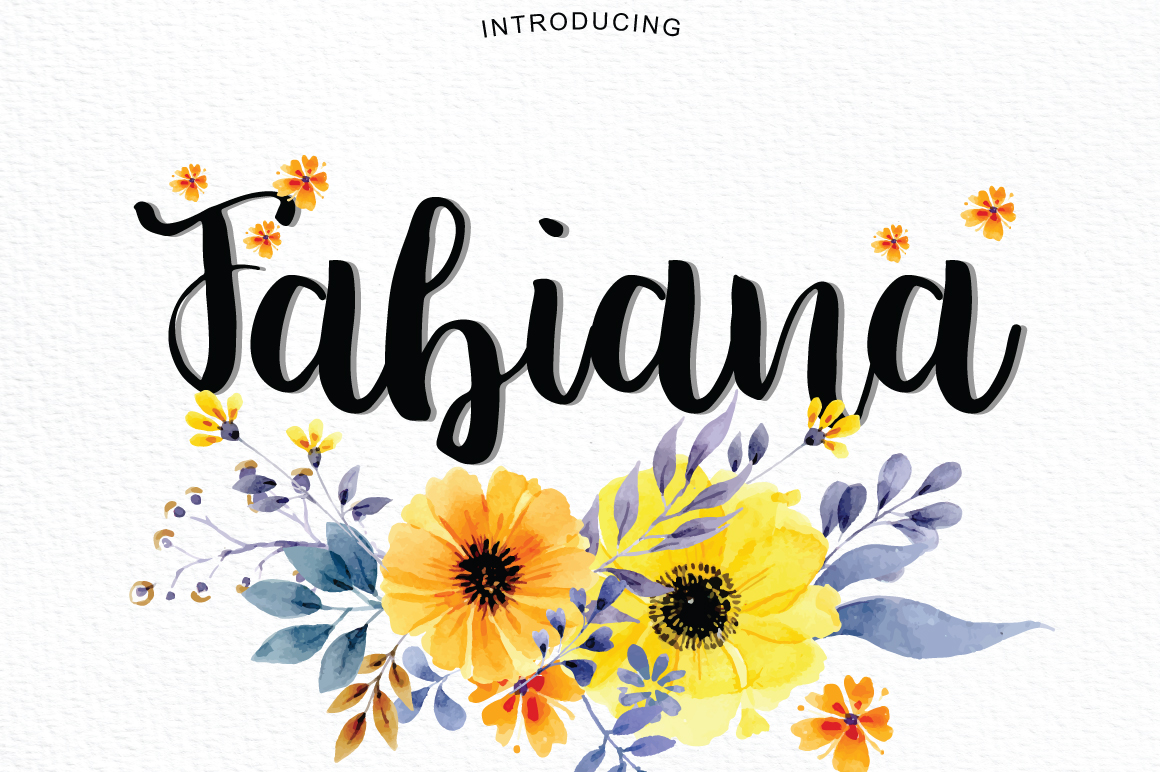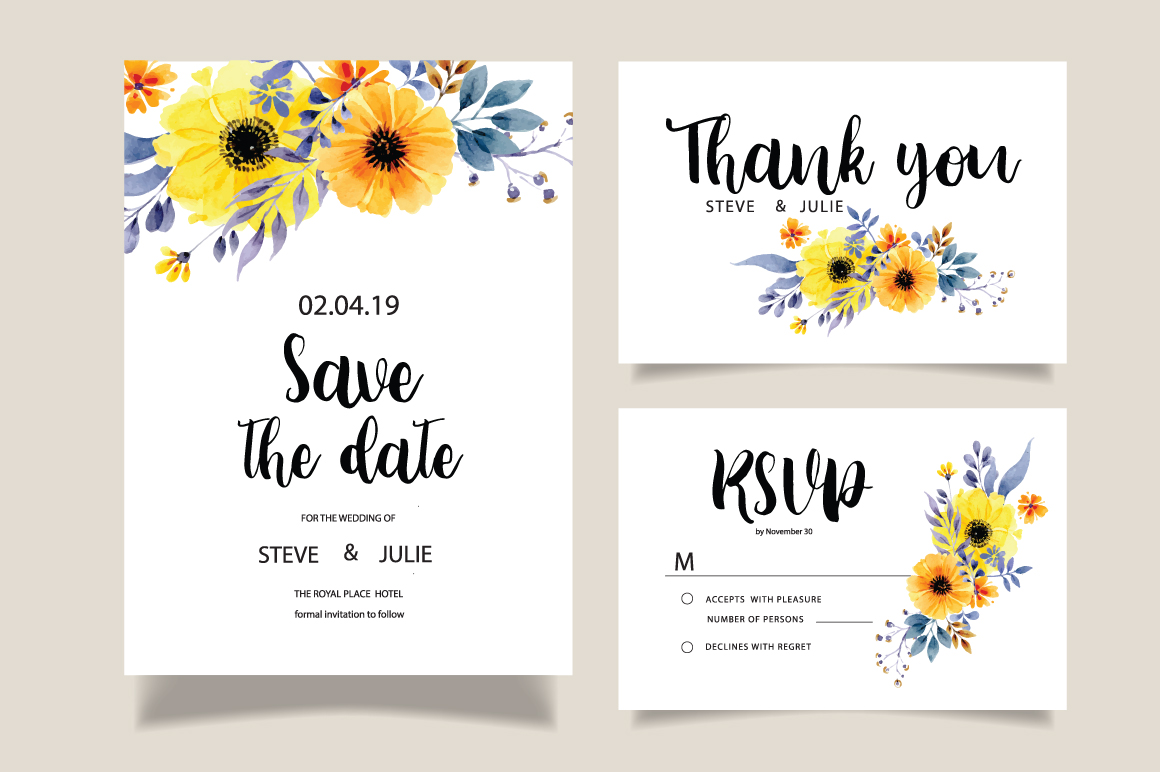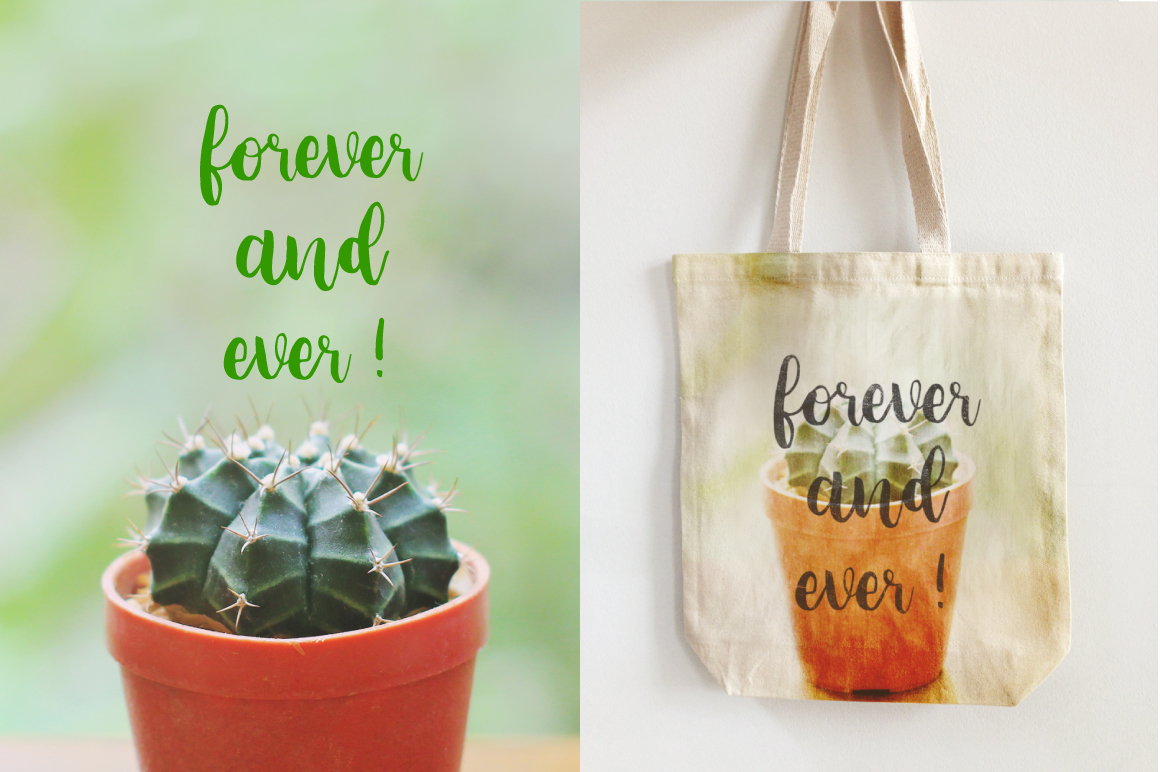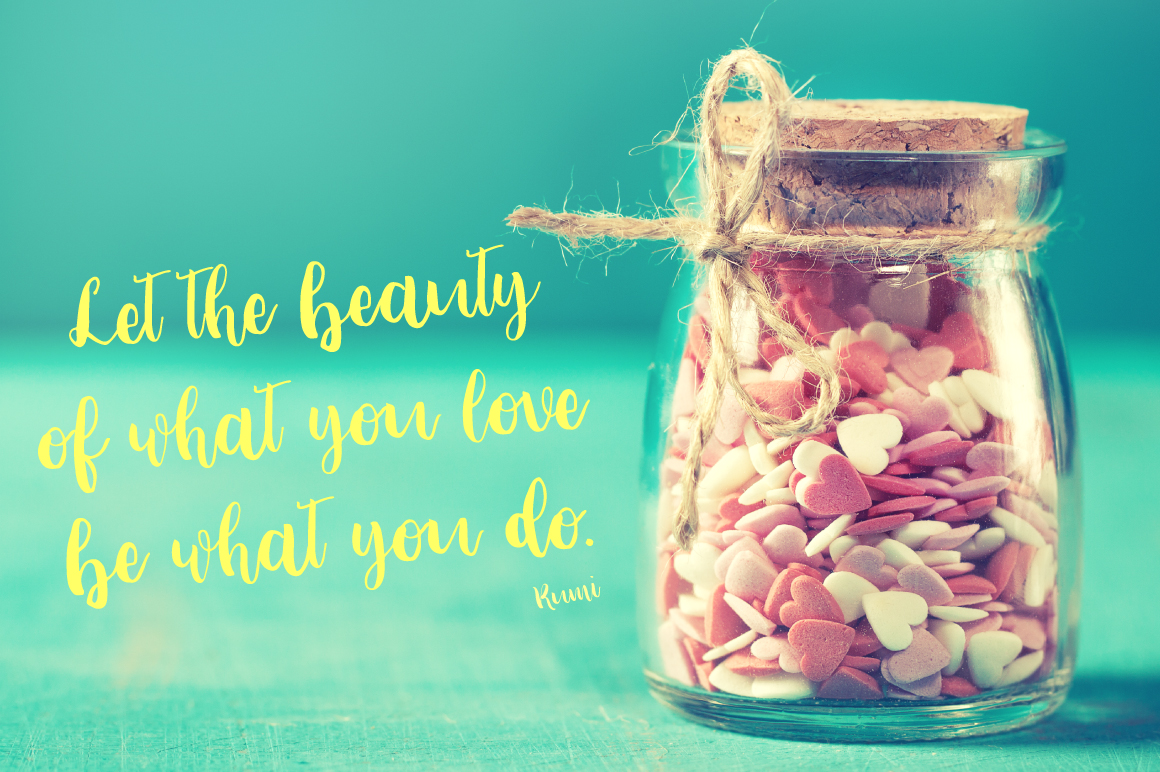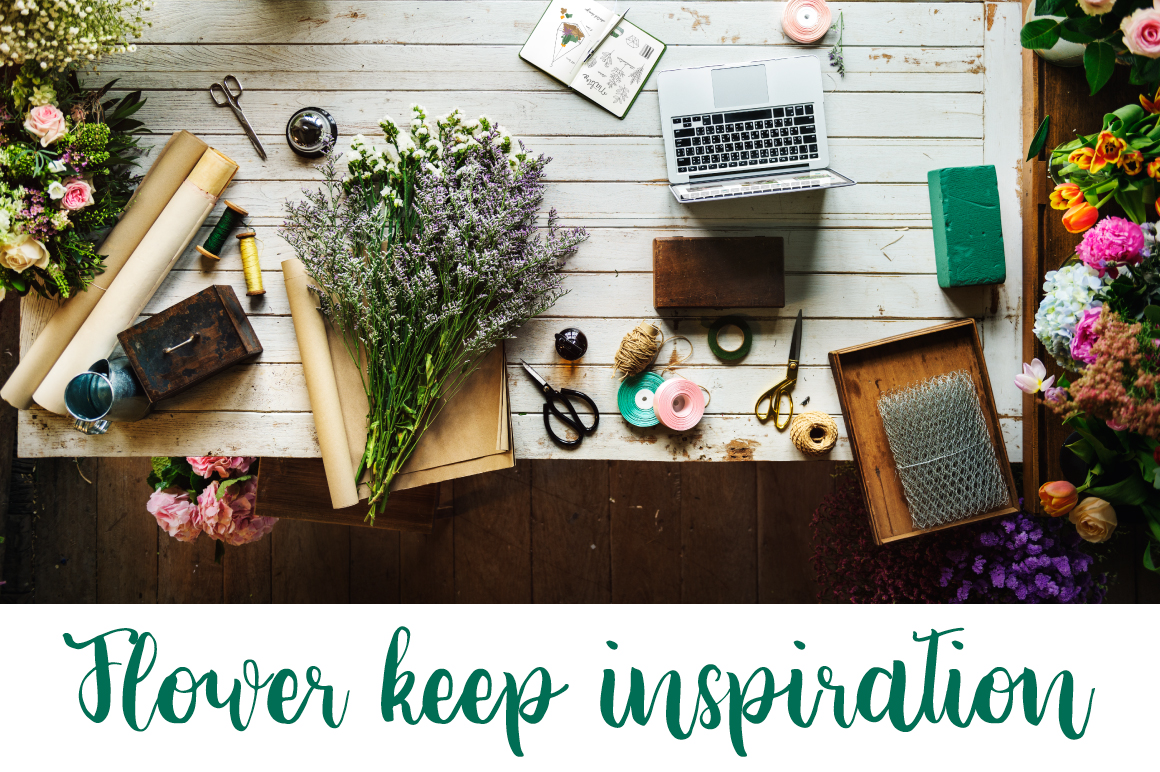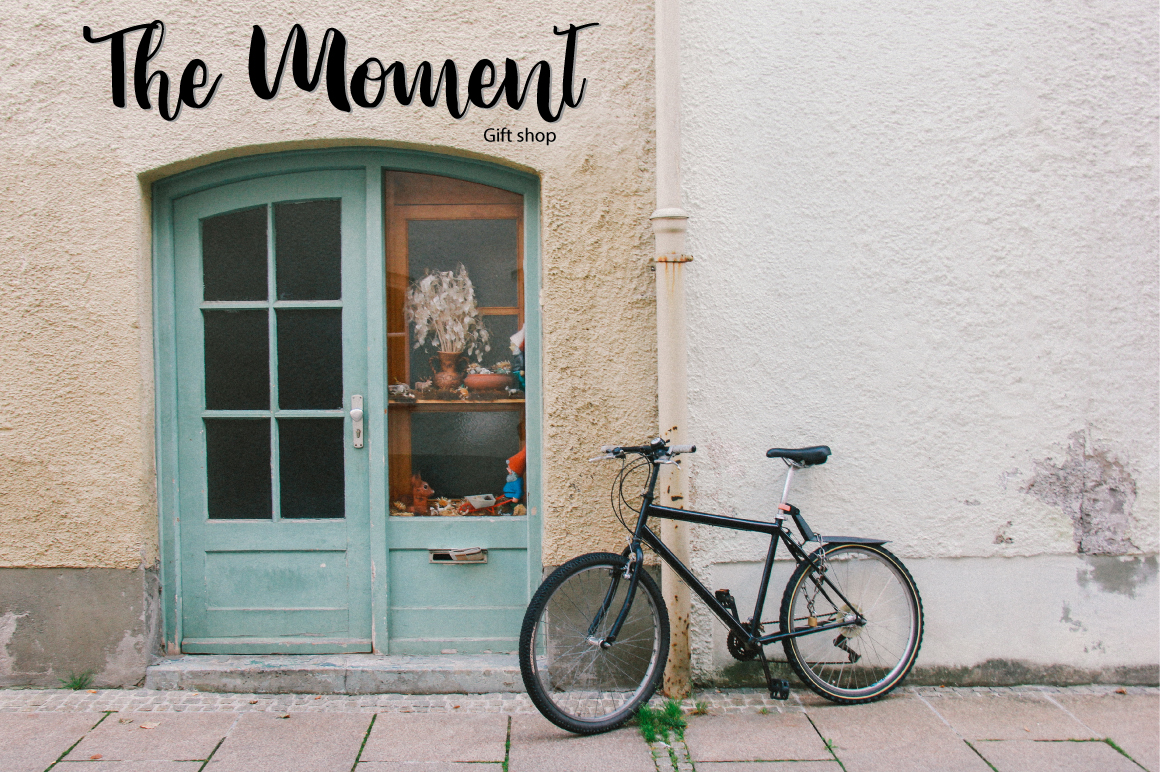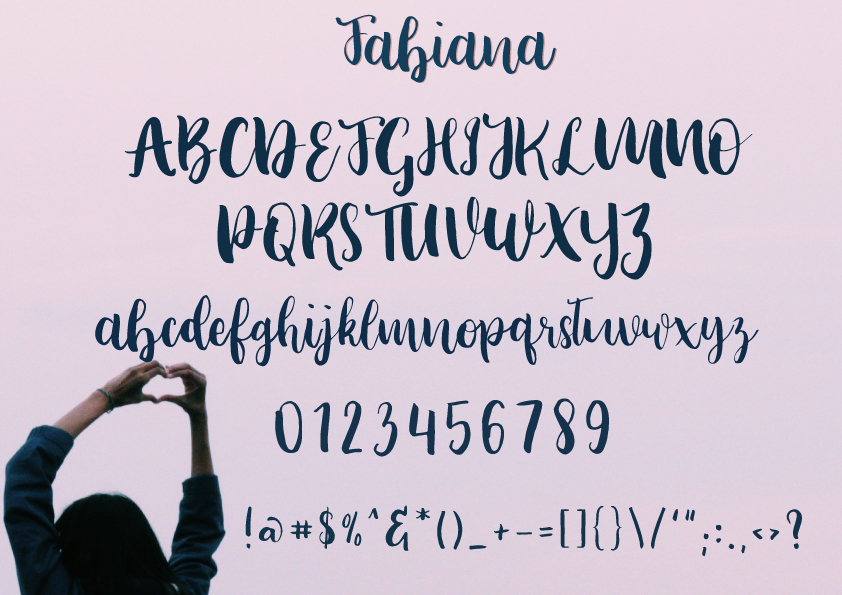
HomeScript FontsFabiana Font Script Fonts Fabiana Font FacebookXPinterestWhatsApp Fabiana Font Poster 2 Fabiana Font Poster 3 Fabiana Font Poster 4 Fabiana Font Poster 5 Fabiana Font Poster 6 Fabiana Font Poster 7 About Fabiana Font Fabiana is a playful handwritten brush script. It’s great for adding a personal touch to your designs. DOWNLOAD NOW People also explored Signature Gon Soft Cream Bella Canvas 3001 Mockup Saket Font Bintang Signature Font Kampione Font Crabs Font Asoka Font Nightmare Eggplant Font Albanita 307 0 TagsFabiana Font Previous articleQuincy FontNext articleMareena Font LEAVE A REPLY Cancel reply Comment: Please enter your comment! Name:* Please enter your name here Email:* You have entered an incorrect email address! Please enter your email address here Website: Save my name, email, and website in this browser for the next time I comment. Personal Use Free Lollipop Melody Personal Use Free Read more about this font Sea Gardens Personal Use Free Read more about this font Mandara Personal Use Free Read more about this font Green Farmhouse Personal Use Free Read more about this font BLOG Free Fonts Risk: Why Free Fonts Can Be Dangerous for Designers Free Fonts Risk: Why Free Fonts Can Be Dangerous for Designers Using free fonts is a common practice in web and graphic design. However, the... To increase your work productivity, choose the most readable fonts. Transform Your Website: Elevate Your Typography with 7 Best Web Font Generators How to Install and Use Fonts on Windows, macOS, and Web Projects